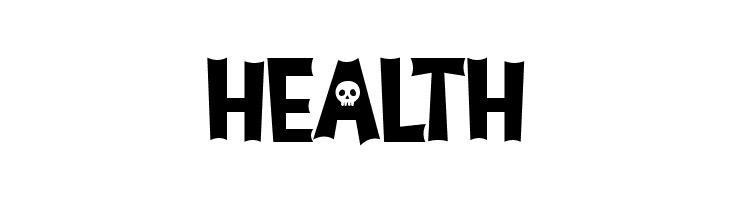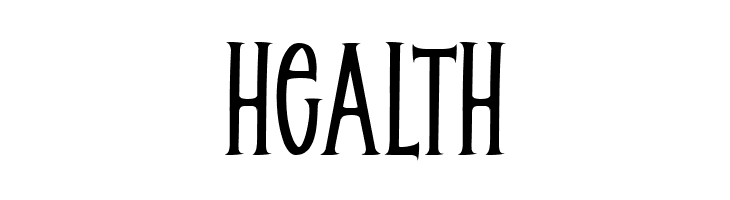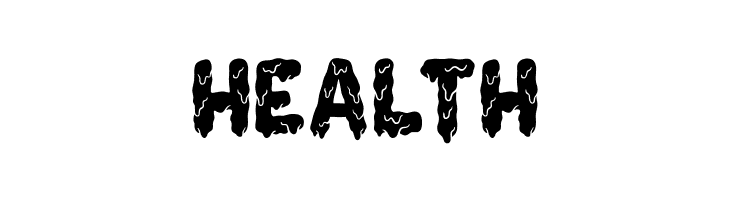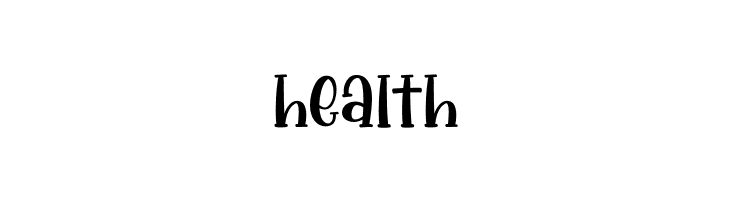
A jagged, thorn-like font perfect for Halloween themes.
A bold, dripping font with a spooky, oozing effect.
A bold, italic font with a ghostly, textured appearance, perfect for spooky themes.
A bold, distressed font with a vintage horror aesthetic.
A bold, playful font with a spooky, hand-drawn style.
A chaotic, thorny decorative font ideal for horror-themed designs.
A bold, dripping font with a horror-inspired, gothic style.
A playful, bone-themed font perfect for spooky designs.
A Halloween-themed symbol font with bold, black silhouettes of spooky icons.
A bold, gothic font with sharp, jagged edges and a spooky aesthetic.
A bold, dripping font with a horror-inspired design.
A bold, dripping font with a gothic, horror-inspired style.
A playful, spooky font ideal for Halloween themes.
A bold, jagged font with a dripping, eerie style perfect for horror themes.
A horror-themed font with dripping, eerie characters.
A spooky, gothic-style font with sharp serifs and decorative details.
A playful, spooky decorative font with Halloween-themed elements.
A spooky, jagged font perfect for Halloween themes.
A bold, jagged font with a spooky, playful Halloween theme.
A spooky, jagged font perfect for horror and Halloween themes.
A playful, Halloween-themed font with bold, rounded characters and spooky elements.
A playful, whimsical font with a spooky, hand-drawn style.
A playful, spooky font with Halloween-themed decorative elements.
A bold, jagged font with a playful, spooky Halloween theme.
A bold, jagged font with a spooky, hand-carved appearance.
A spooky, hand-drawn font with sharp, elongated strokes and a scratchy texture.
A bold, decorative font with spider web motifs, perfect for spooky themes.
Halloween-themed decorative dingbat font with spooky icons.
A playful, dripping slime font with a hand-drawn, eerie appearance.
A bold, decorative font with quirky, spiral-adorned characters, ideal for spooky themes.
A bold, spooky font with jagged edges and thematic Halloween elements.
A playful, spooky font with decorative Halloween-themed elements.
A playful, ghost-themed font perfect for Halloween designs.
A bold, dripping font ideal for horror and Halloween themes.
A spooky, jagged font with a playful, hand-drawn style.